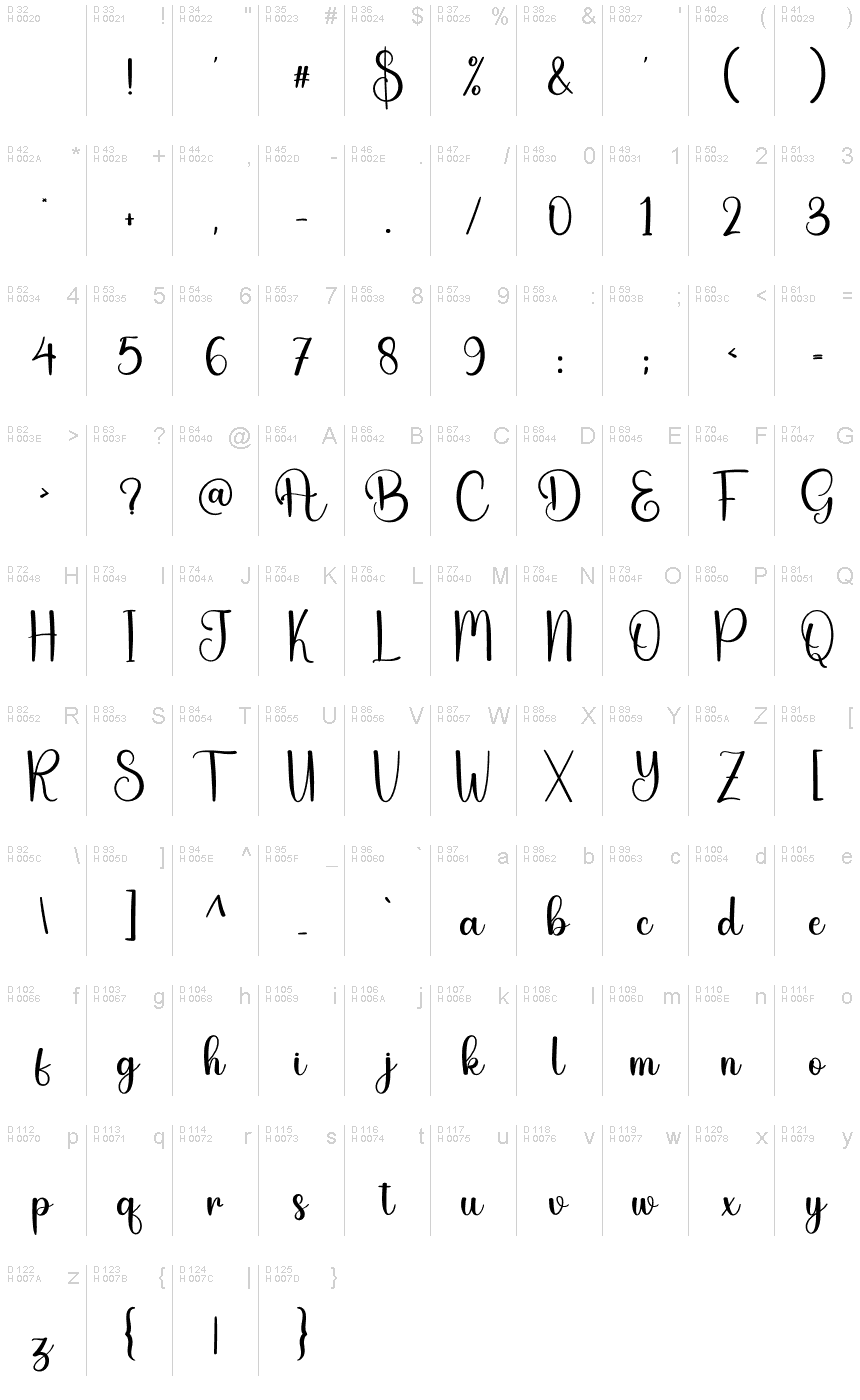
Ditty
Ditty, a captivating calligraphy font by Harlek Studio, effortlessly adds elegance and finesse to any project.
With its semi-light weight, Ditty brings a delicate touch to wedding invitations, creating an enchanting atmosphere for the special day. Its graceful curves make it a perfect choice for logo designs or branding materials seeking a touch of sophistication. Embrace the fluidity of Ditty in editorial layouts, capturing attention with its artistic flair. Whether it's stationery or social media graphics, this versatile font will lend an air of refined beauty to your creations.